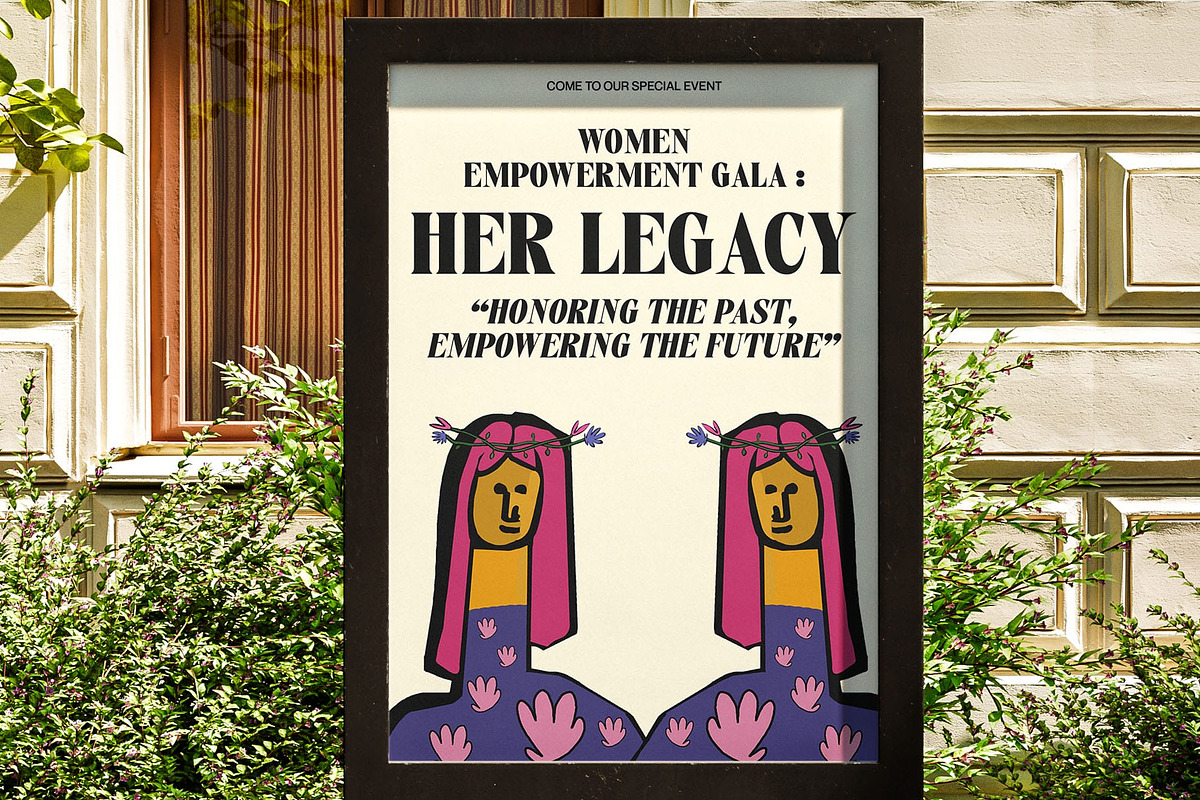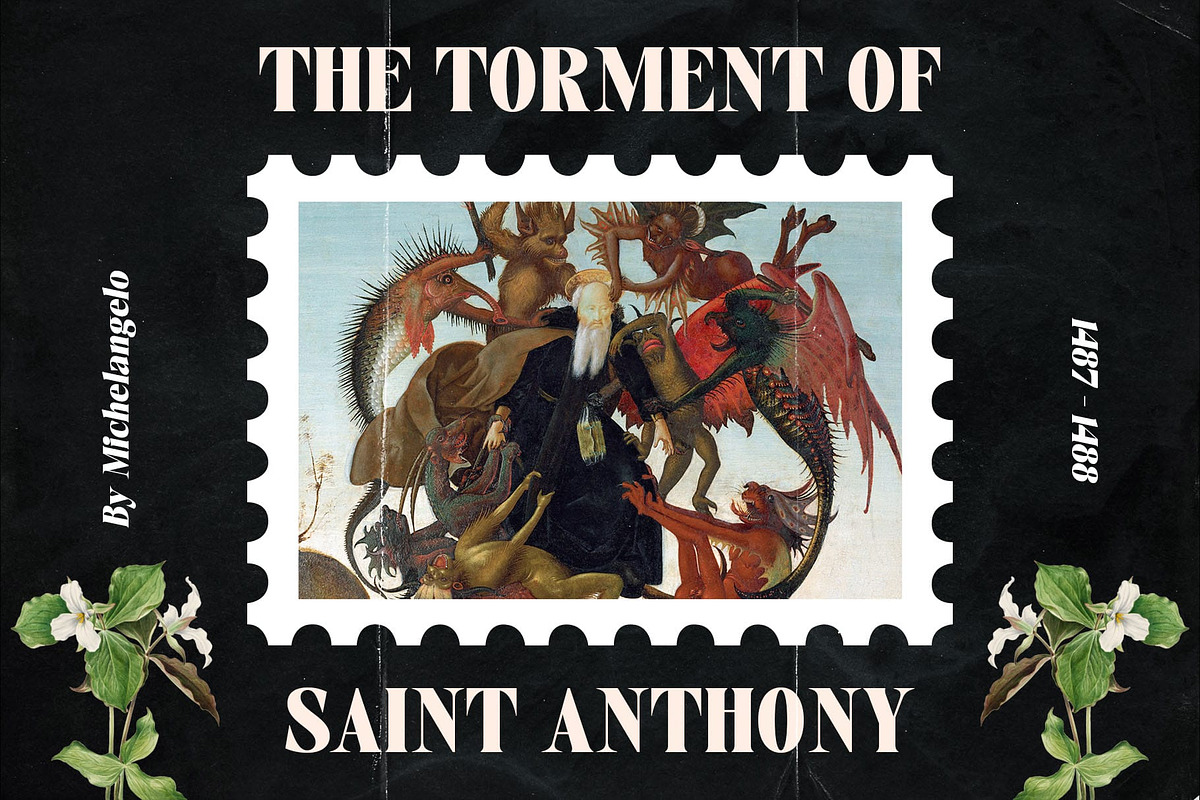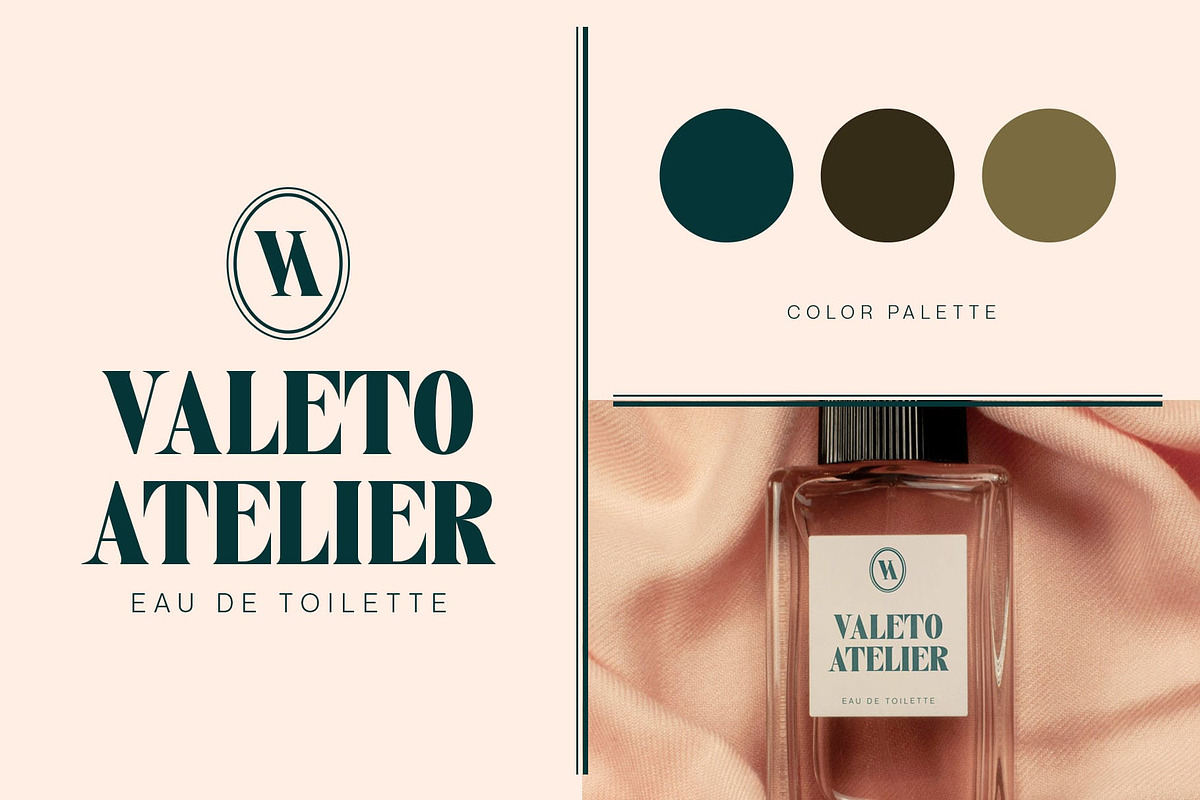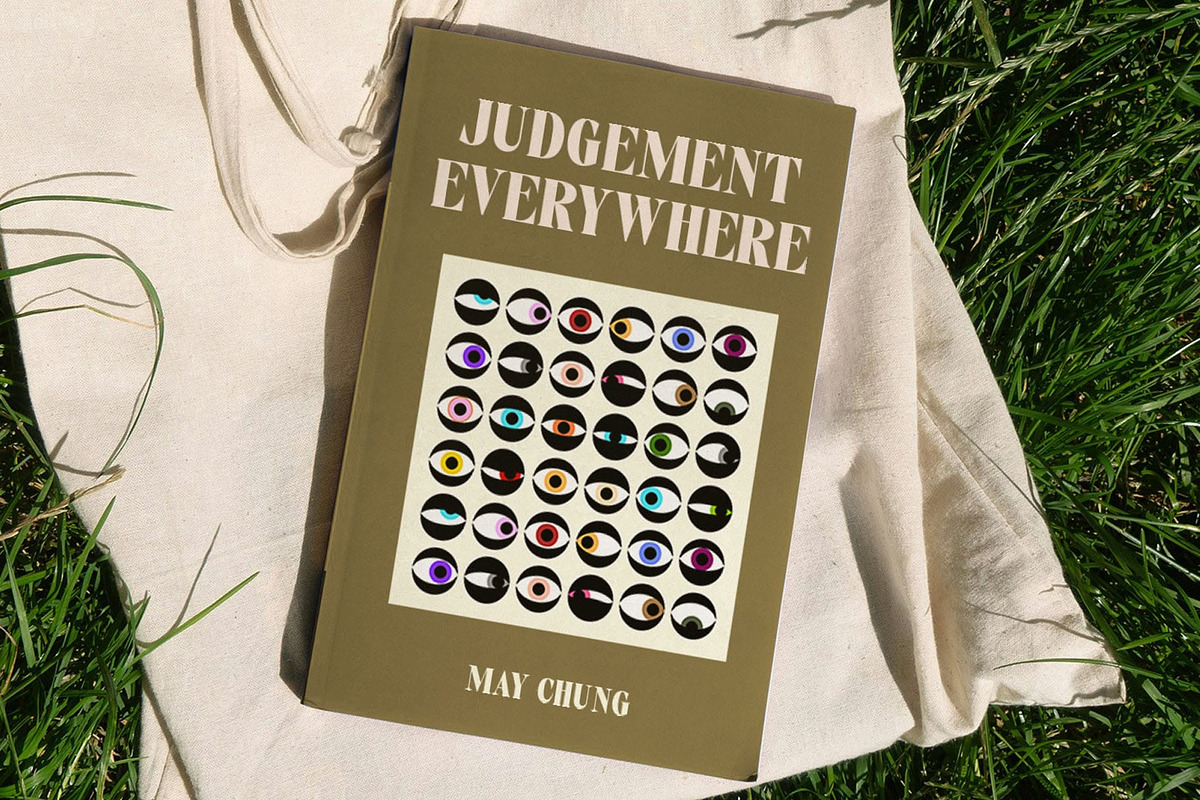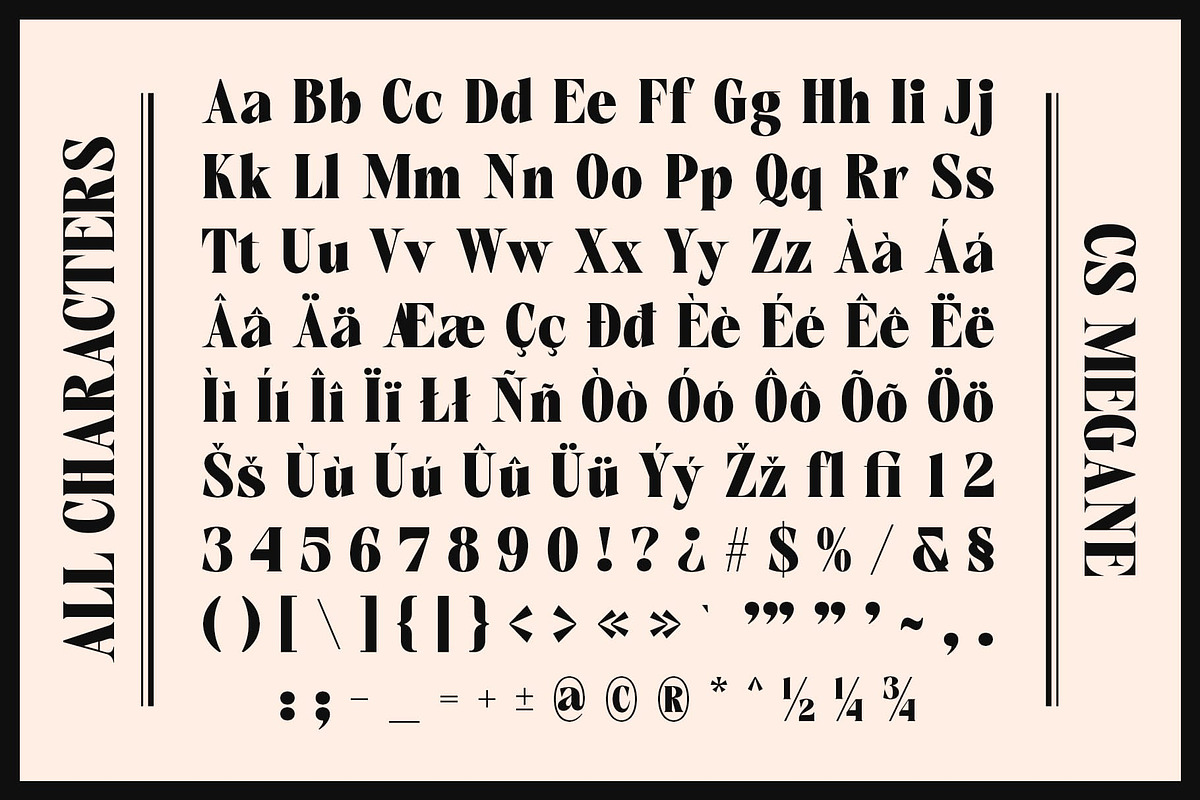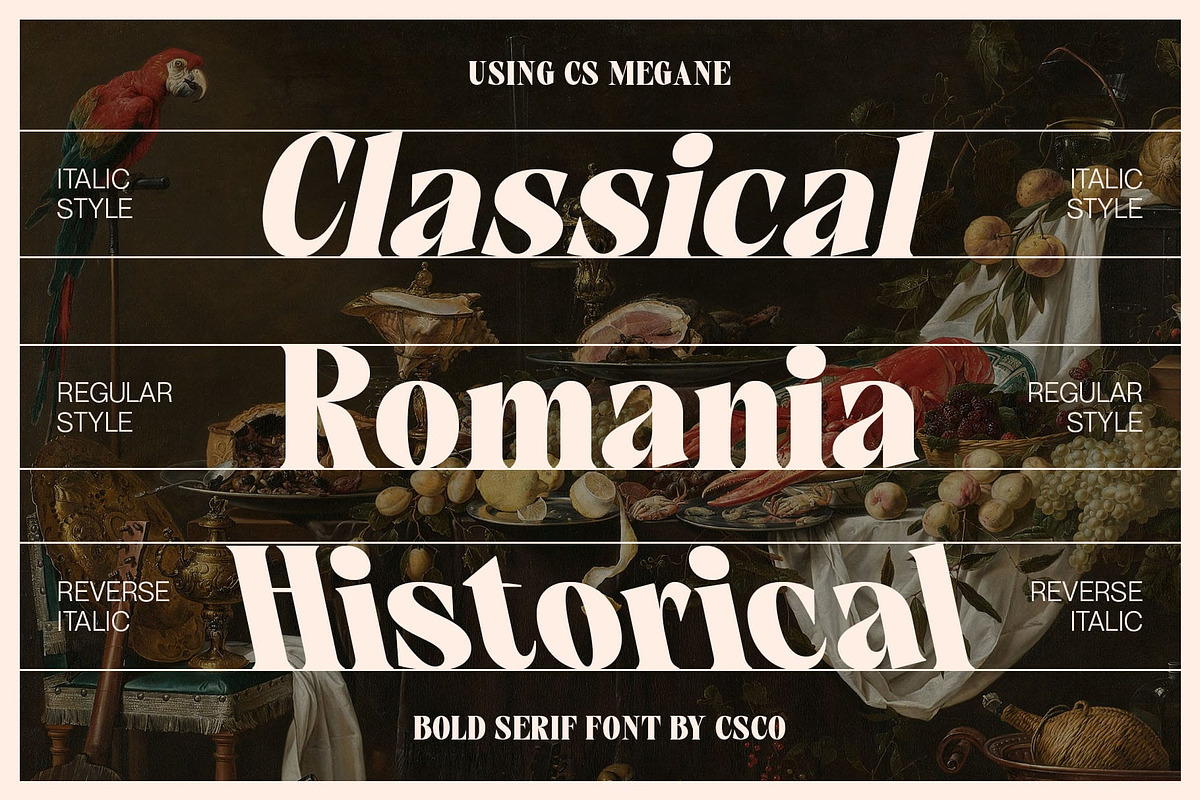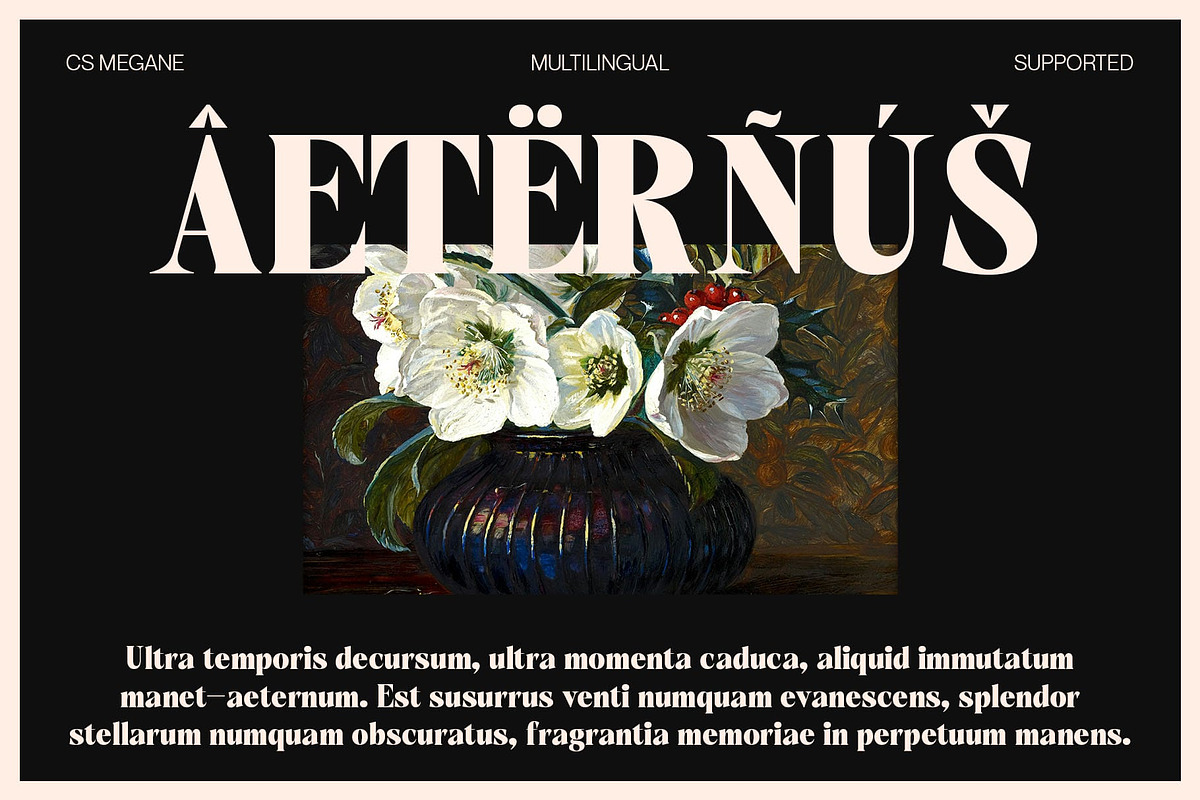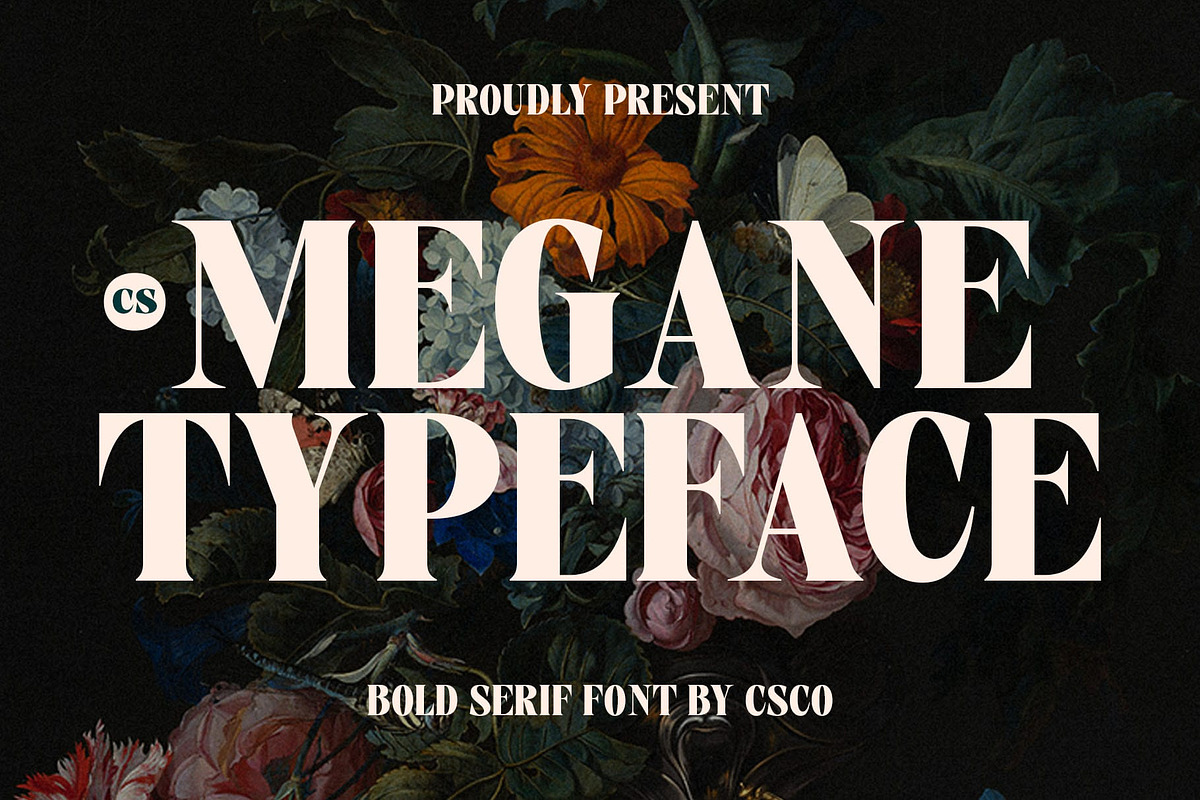
CS Megane – Bold Font
CS Megane Font: Bold Elegance with Timeless Authority
Modern Classic Serif with a Luxurious Presence CS Megane is a bold serif font that seamlessly blends traditional luxury with contemporary boldness. Its sophisticated letterforms exude confidence and refinement, making it a perfect choice for high-end branding, elegant typography, and impactful visual communication. With a commanding presence, it balances classic elegance with modern strength, ideal for creating timeless yet fresh designs.
High Contrast and Sharp Lines for a Distinctive Look Designed with high contrast and precisely sculpted serifs, CS Megane stands out with its sharp, clean lines. The font’s bold yet graceful form makes it an excellent option for striking headlines, luxury branding, and editorial layouts that demand attention.
Perfect for Branding, Editorials, and Luxury Designs CS Megane thrives in premium and high-impact design applications. Whether used in branding, magazine covers, or upscale packaging, its powerful yet polished appearance ensures a distinguished look. The font’s bold structure allows it to maintain clarity and elegance across various formats, from digital displays to print media.
A Timeless Typeface for Modern and Classic Identities CS Megane bridges the gap between heritage and modernity, making it a versatile choice for those seeking a typeface with lasting appeal. Whether crafting a sophisticated logo, an editorial masterpiece, or an upscale advertisement, this font provides a strong, confident presence that enhances the overall aesthetic.